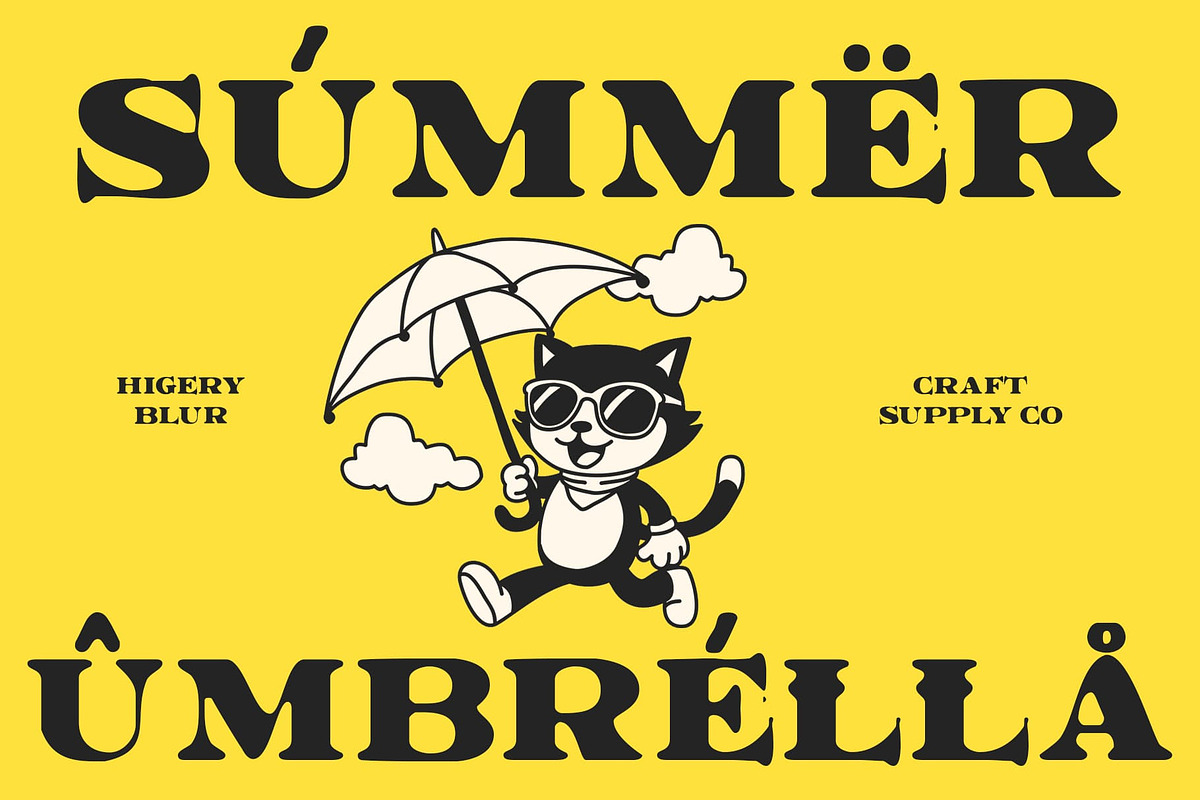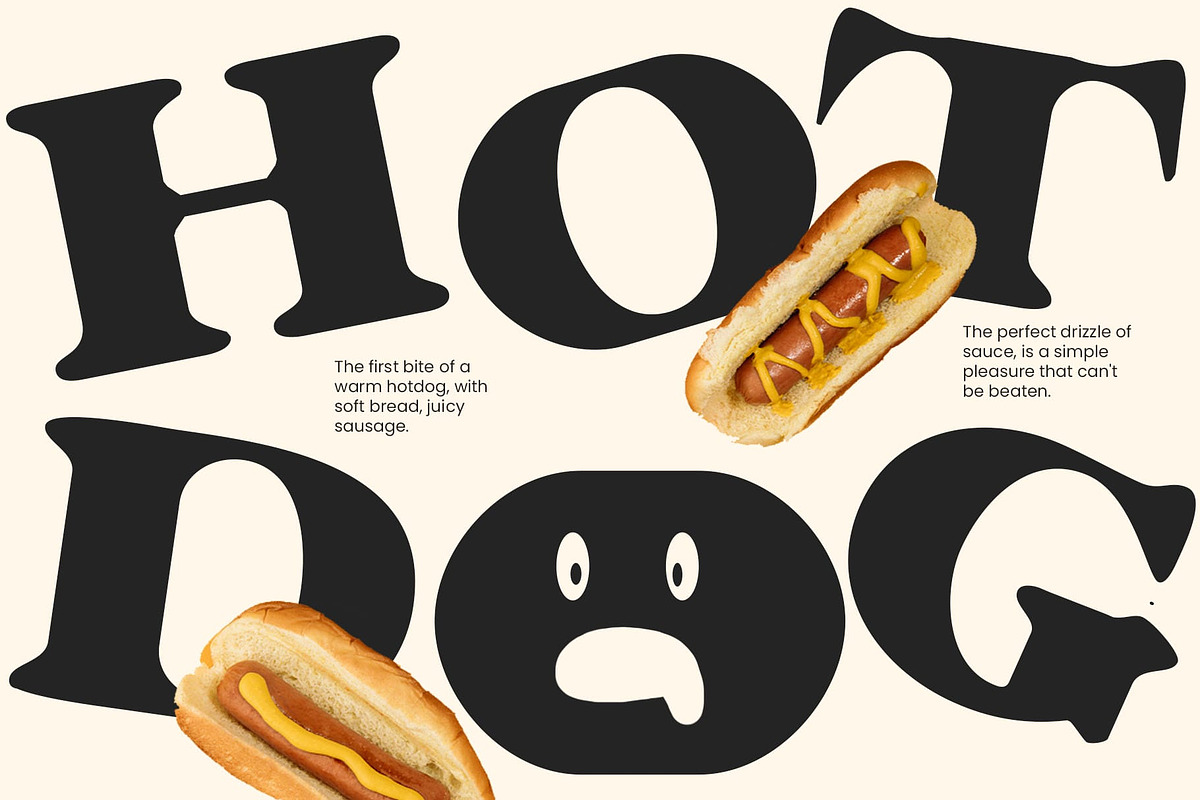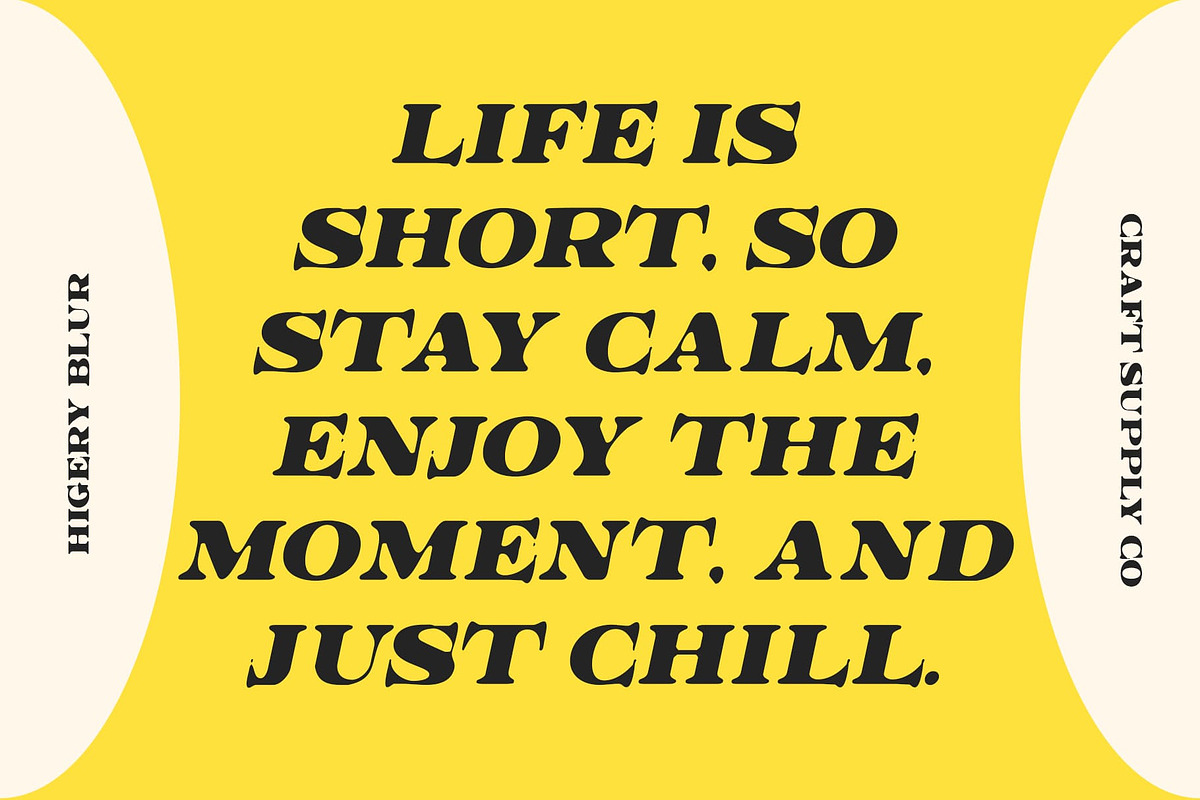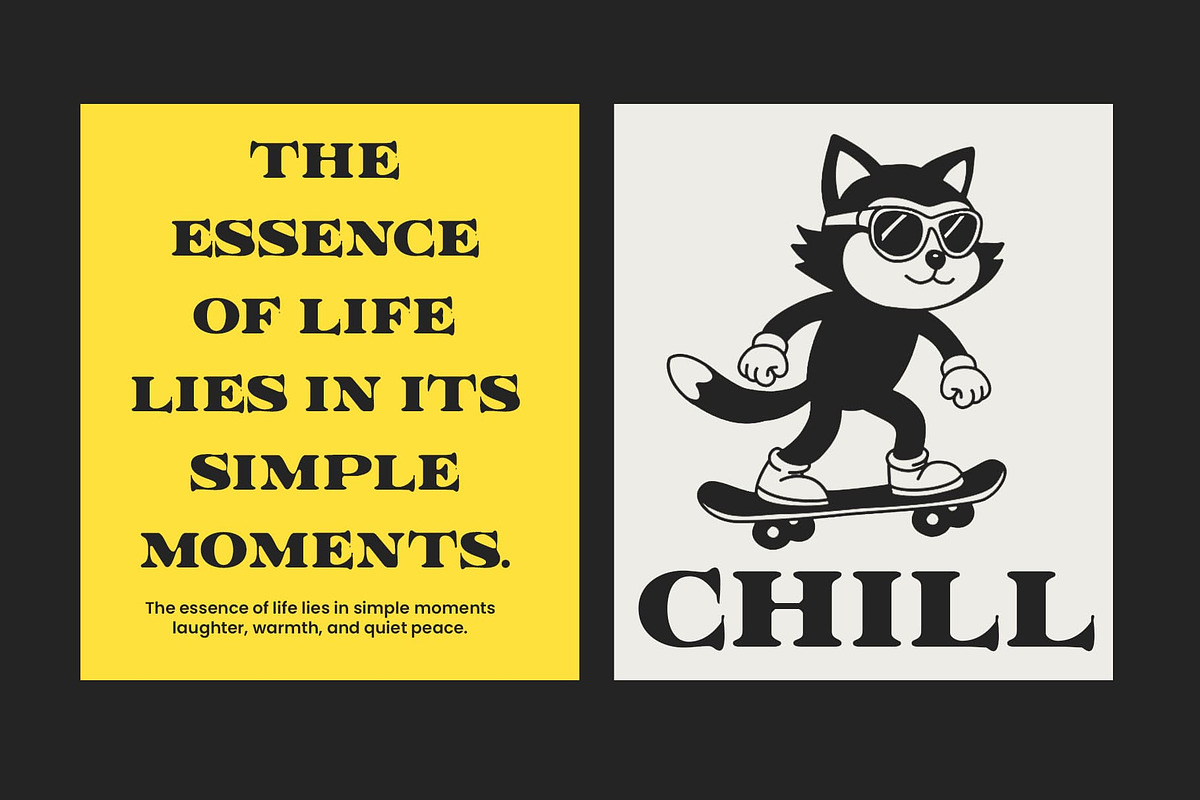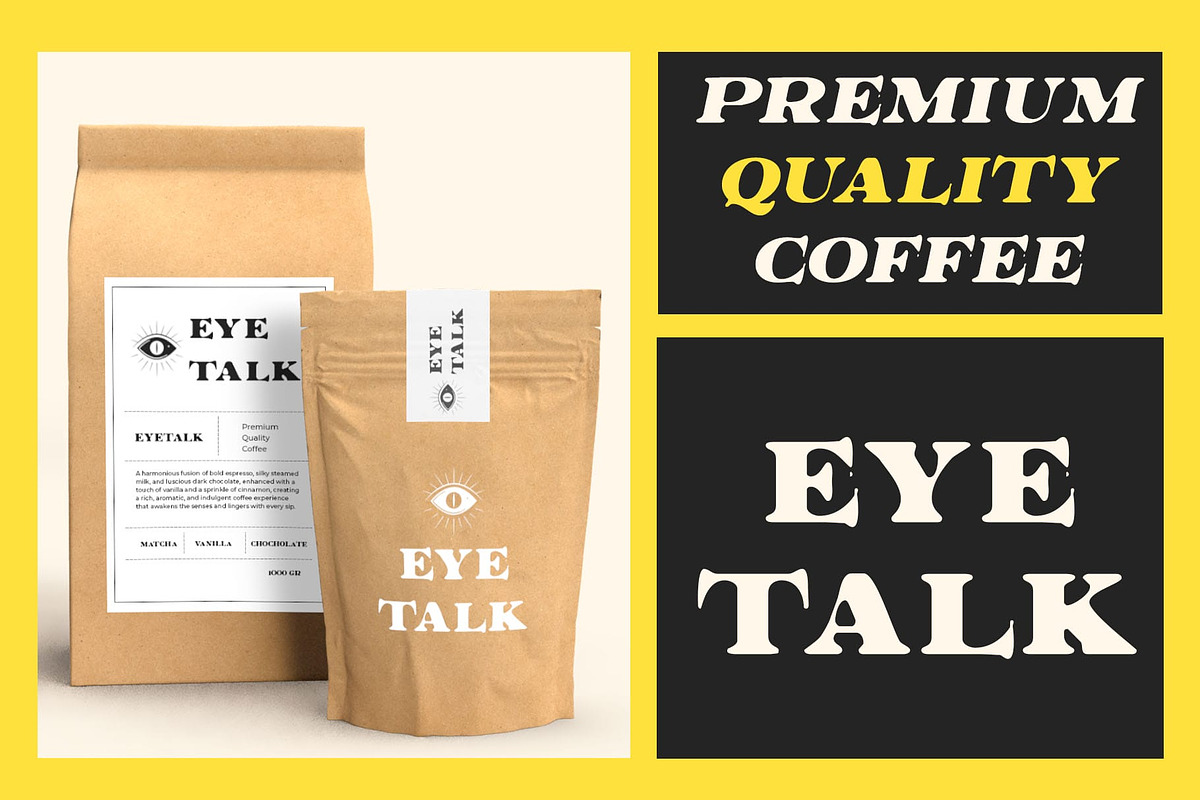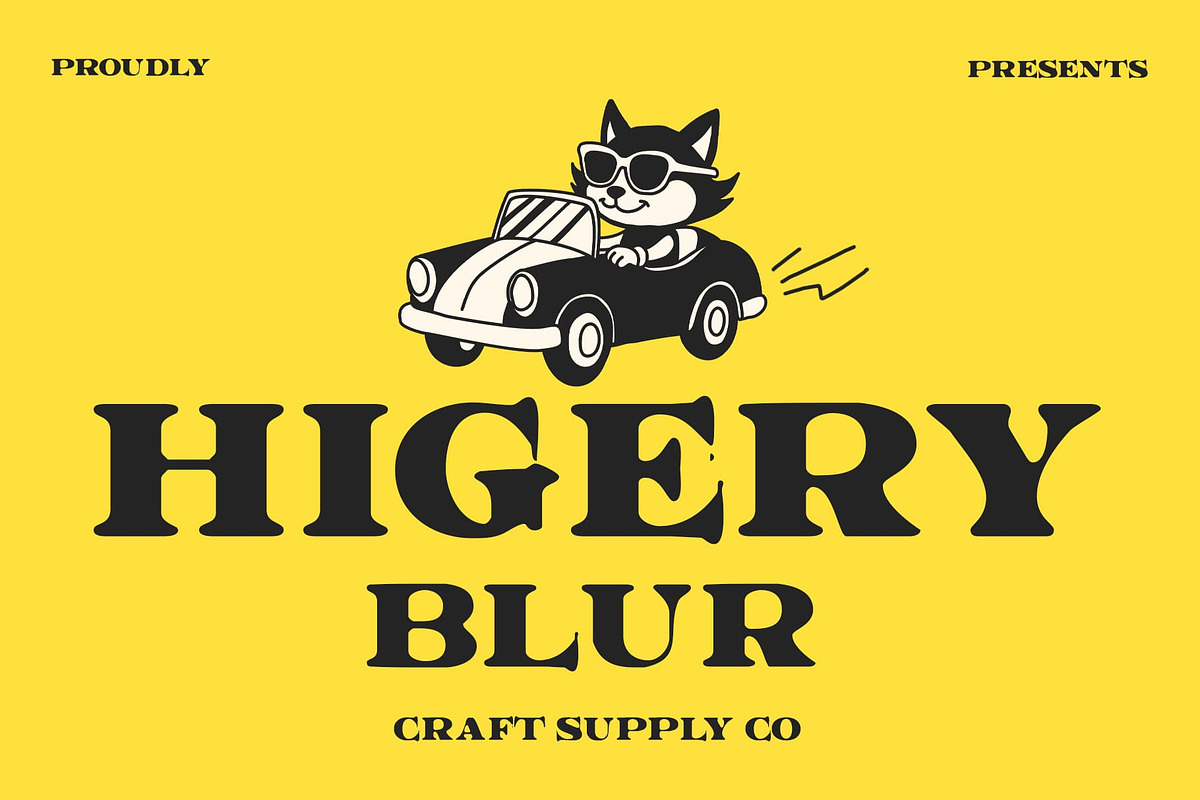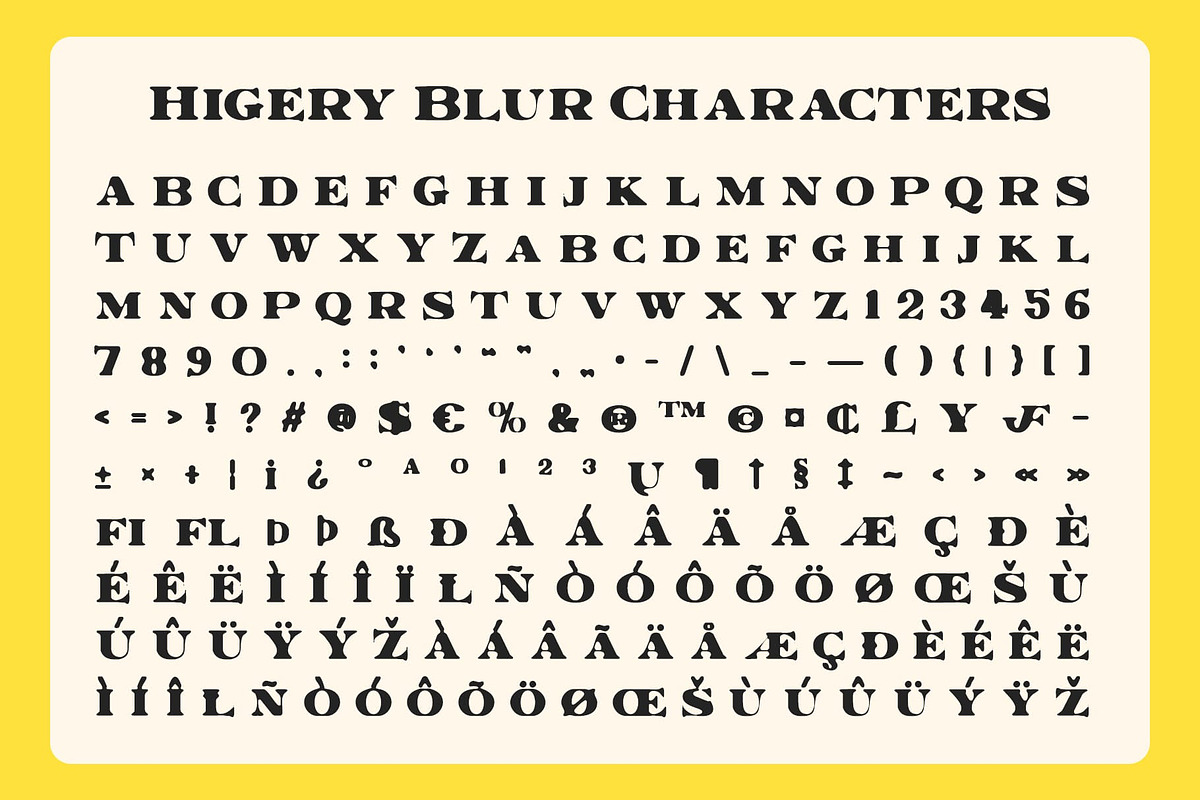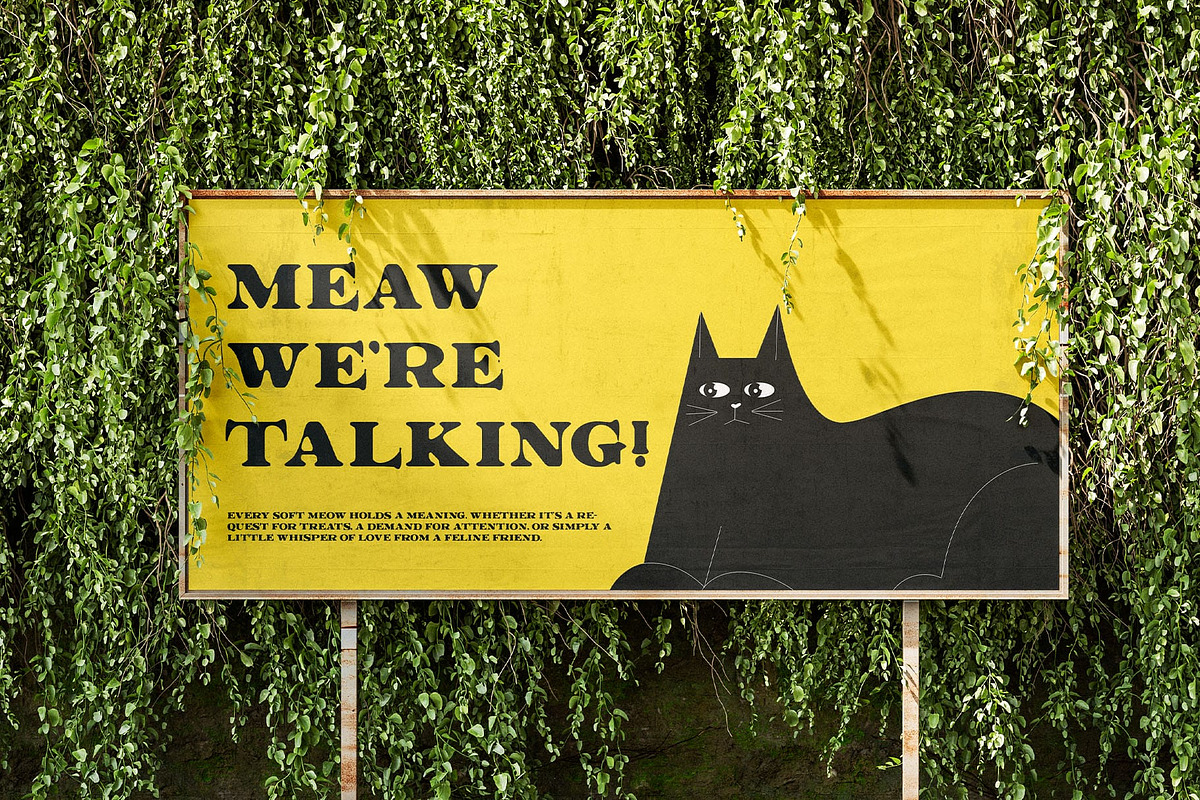
Higery Blur
Higery Blur Font – A Classic Serif with an Artistic Blur Effect
A Bold and Elegant Serif with a Modern Blur Touch Higery Blur is a classic modern serif font with a bold, refined structure, enhanced by a subtle yet striking blur effect. This unique combination creates a sophisticated yet experimental aesthetic, making it ideal for designs that balance timeless elegance with contemporary artistry.
A Fusion of Vintage Charm and Contemporary Appeal With its strong serif letterforms and softened blurred edges, Higery Blur evokes a sense of depth and motion, offering a fresh take on classic typography. The font’s distinctive style makes it perfect for editorial layouts, high-end branding, and luxury packaging that demand a polished yet creative look.
Perfect for Elegant and Experimental Designs Designed for those who appreciate both tradition and innovation, Higery Blur works beautifully in fashion magazines, branding for luxury products, book covers, and artistic posters. Its mix of bold serif shapes and blurred softness creates an eye-catching contrast that adds mystery and sophistication to any project.
A Unique Typeface for Standout Visuals Higery Blur isn’t just a font—it’s a statement of style and creativity. Whether you’re crafting elegant headlines, editorial spreads, or brand identities, this typeface offers a refined yet unconventional appeal. Its artistic blur effect makes it an ideal choice for designers looking to push the boundaries of modern serif typography.
- Higery Blur Regular
- Higery Blur Italic